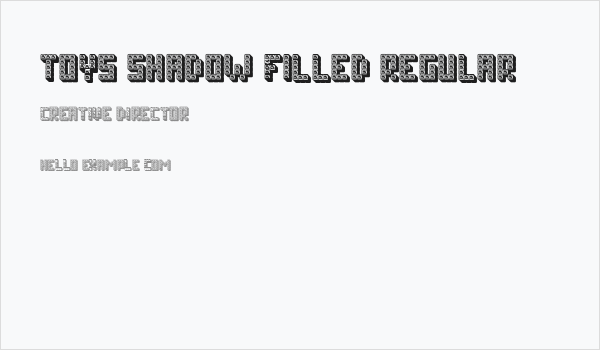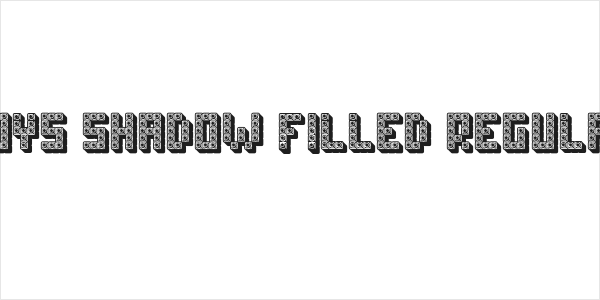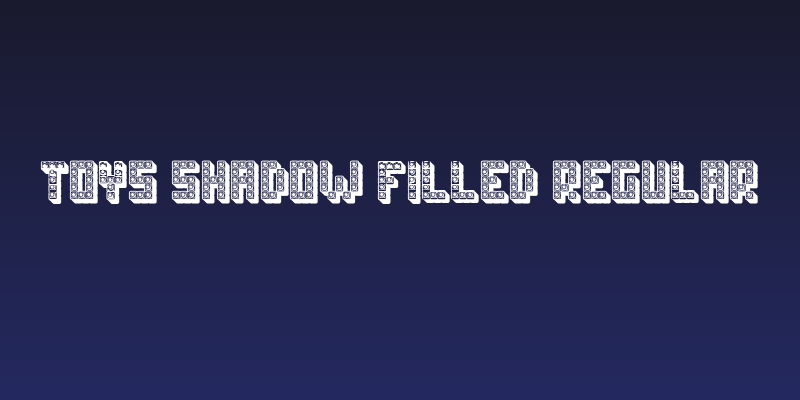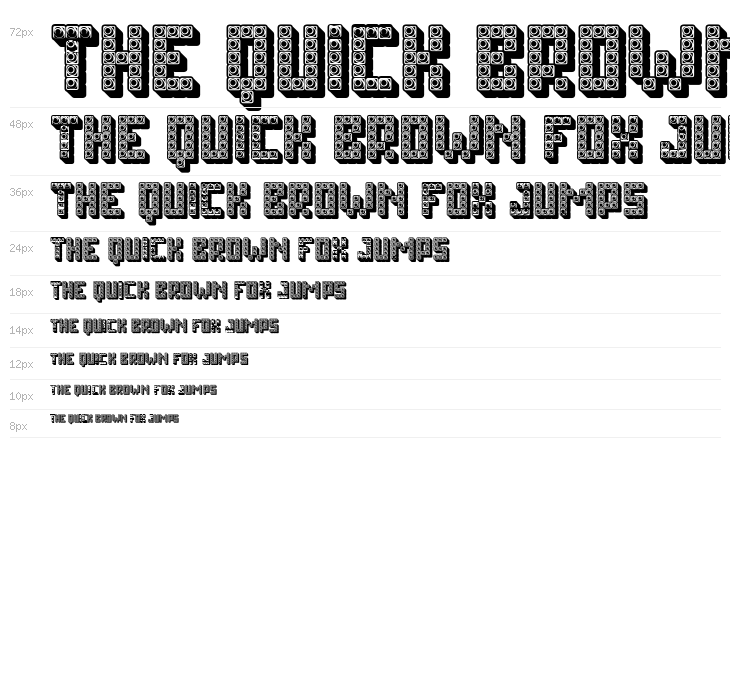
Toys Shadow Filled Regular Font
Toys Shadow Filled Regular Description
This playful and bold font features a unique shadow effect that gives each character a three-dimensional appearance. The letters are filled with a pattern that resembles toy building blocks, adding a whimsical and fun element to the design. The font is highly decorative, making it ideal for projects that require a standout, eye-catching typeface. Its bold and chunky style ensures readability while maintaining a playful aesthetic. The shadow effect adds depth, making the characters pop off the page, perfect for engaging and dynamic designs.
| Overall Style | Playful, Decorative |
| Proposed Projects | Ideal for children's book covers, toy packaging, playful event posters, and any project that needs a fun and engaging typeface. |